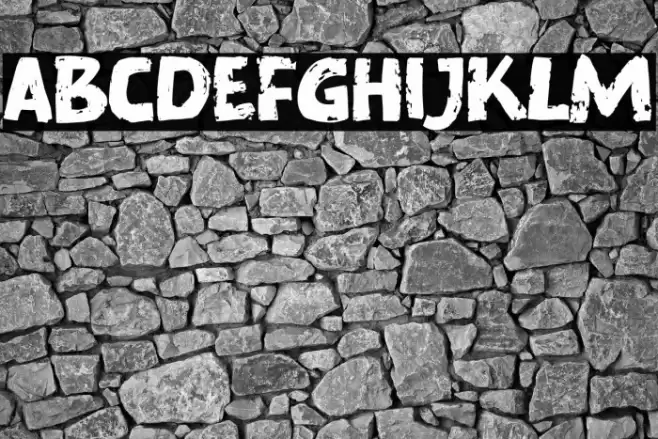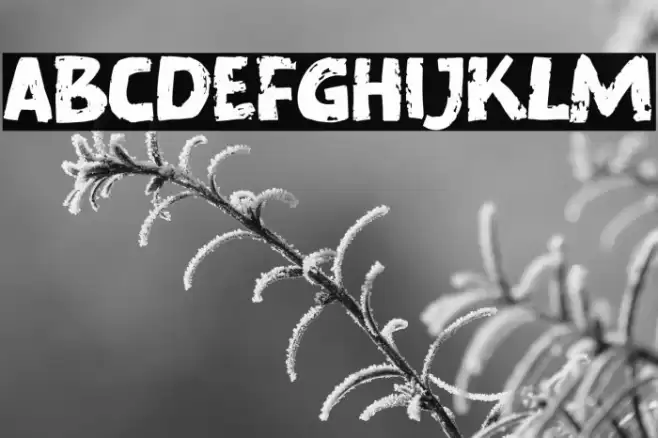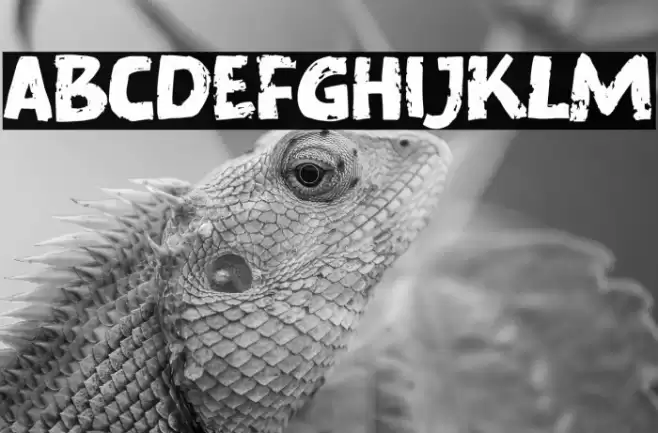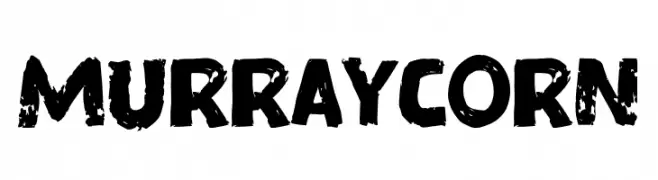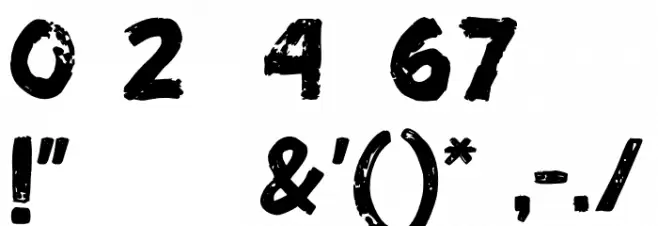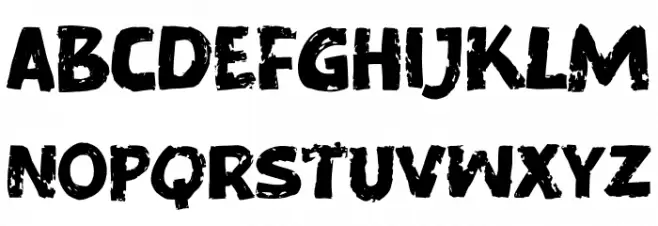
Murray Corn Font
Murray Corn Description
This font features a bold and rugged appearance, characterized by its distressed and textured look. The letters have an uneven, hand-painted style that gives it a raw and energetic feel. The uppercase and lowercase letters maintain a consistent width, while the numbers and special characters follow the same distressed aesthetic. The font's unique style makes it stand out, with a strong visual impact that is perfect for grabbing attention. Its rough edges and irregular strokes add to its dynamic and expressive nature, making it suitable for projects that require a bold statement.
A bold, distressed font with a rugged, hand-painted appearance from Uncategorized fonts.
- Font: Murray Corn
- Proposed Projects: Ideal for posters, album covers, branding, and any project that requires a bold, artistic touch.